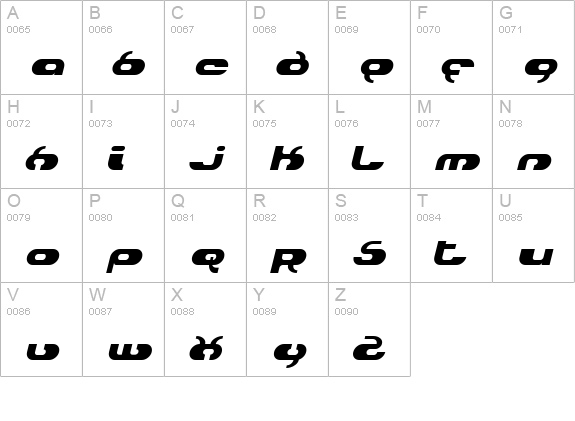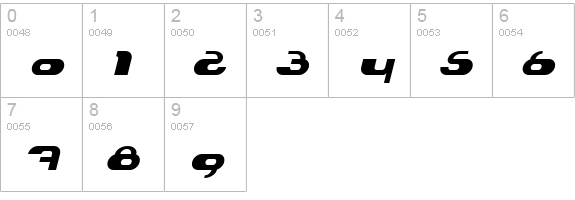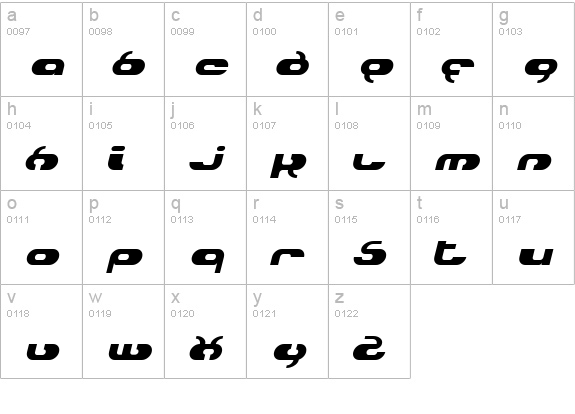
Hydro Italic is a distinctive, italic variant in the Hydro typeface family \xE2\x80\x94 well suited to design and typography projects.
Hydro Italic is a sleek and modern font that exudes elegance and sophistication. Its smooth curves and slanted style give it a unique and dynamic look that is perfect for projects requiring a touch of sophistication. The italicized design adds a sense of movement and fluidity to any text, making it stand out in a subtle yet striking way. What sets Hydro Italic apart is not just its aesthetic appeal, but also its accessibility. This font is freely available to download at FontsMarket.com, making it an excellent choice for designers and creatives looking for high-quality typography without breaking the bank. With Hydro Italic, you can elevate your designs with a touch of class and professionalism, all while enjoying the freedom of using a premium font at no cost.